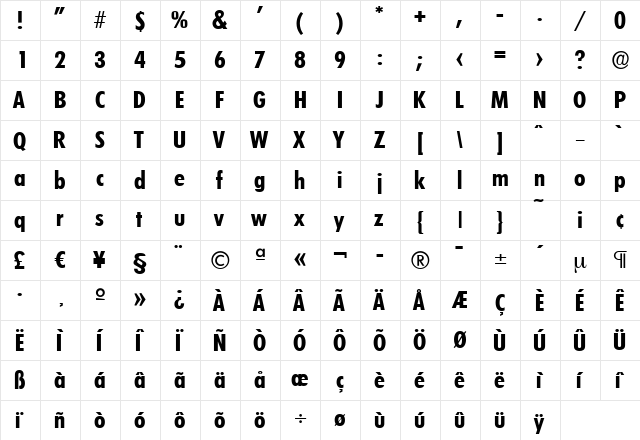
PeterBeckerCond Bold Font Preview
PeterBeckerCond Bold
PeterBeckerCond Bold Font Details
Design Context for PeterBeckerCond Typeface
PeterBeckerCond offers clean, dependable letterforms without strong stylistic allegiance, making it a practical choice for designers who need flexibility. Its bold stroke weight gives it real presence on the page. The condensed width makes it efficient for tight spaces without sacrificing legibility.